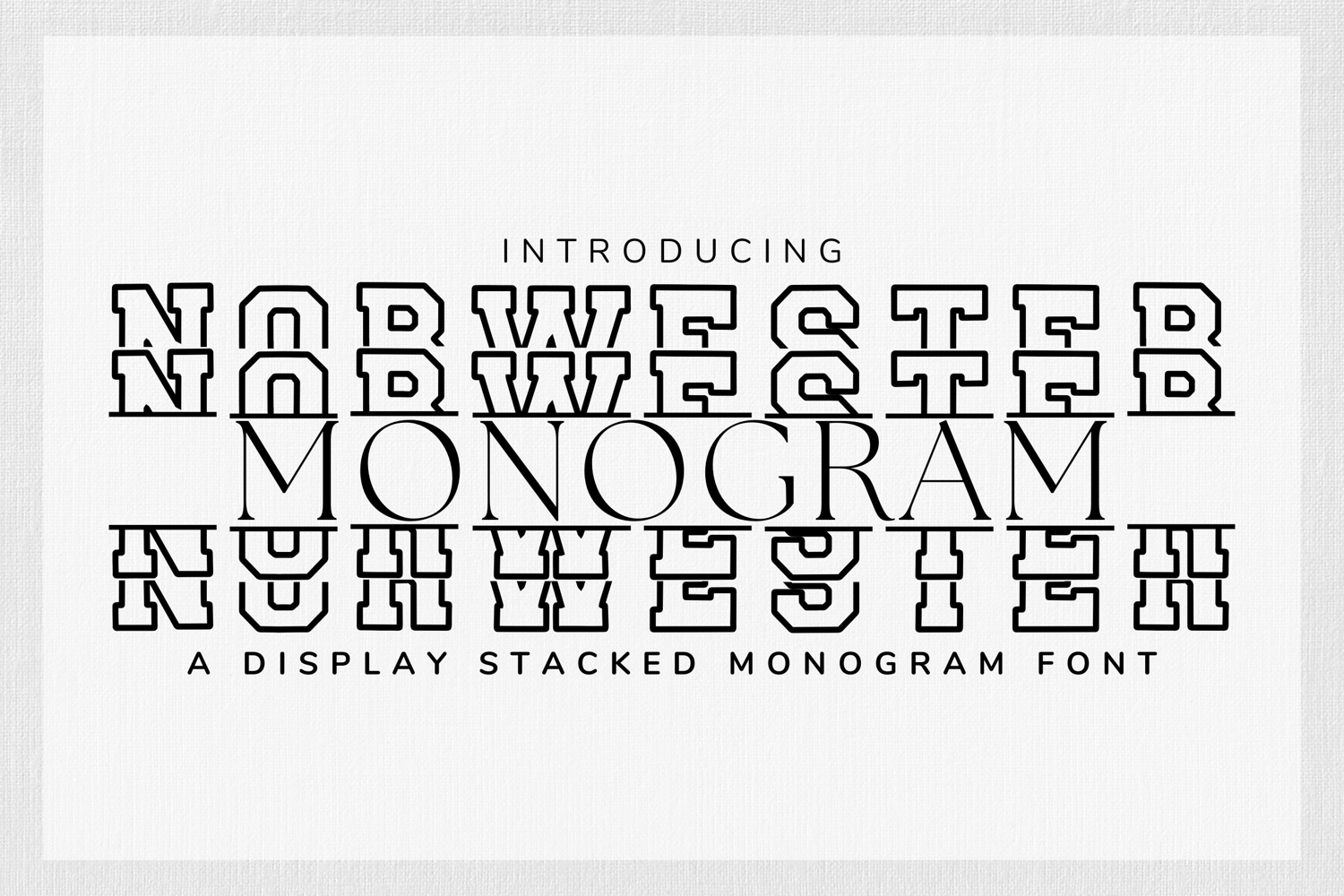
Norwester Stacked Monogram - Bold Varsity Block Font
Norwester Stacked Monogram
Norwester Stacked Monogram is a bold and condensed all-caps varsity display font designed specifically for stacked initials and monogram layouts. Inspired by athletic and collegiate typography, this font combines the clean, geometric power of the classic Norwester style with a structure perfect for logos, emblems, and layered designs.
The stacked monogram style makes it ideal for creating sports team initials, school branding, apparel designs, and modern monogram logos that demand strength and presence.
• Stacked Monogram Design with varsity-inspired lettering
• All-Caps Typeface with bold, condensed block forms
• Perfect for logos, emblems, initials, and monograms
• Includes uppercase letters, numbers, punctuation & multilingual support
• Varsity & athletic team branding
• School initials & sports monograms
• Jerseys, jackets & merchandise
• Posters, flyers & event banners
• Modern monogram logos & packaging